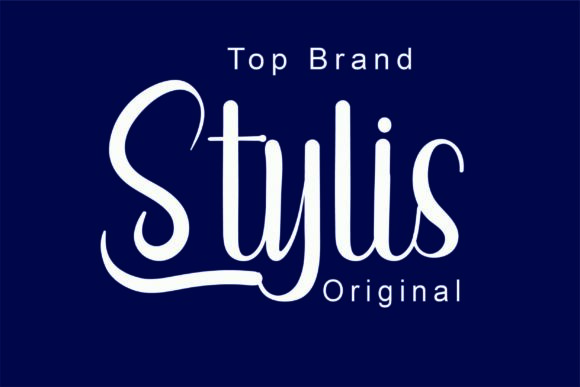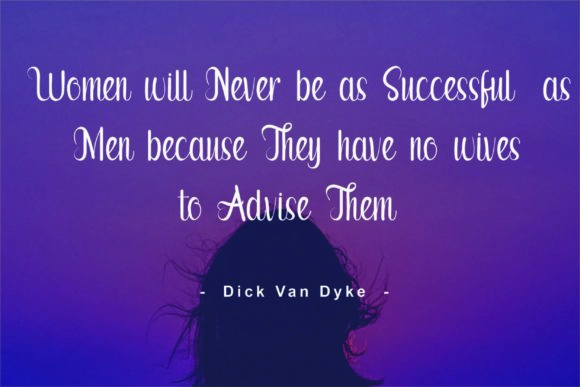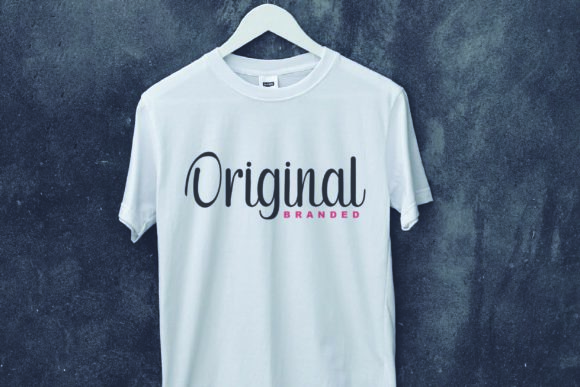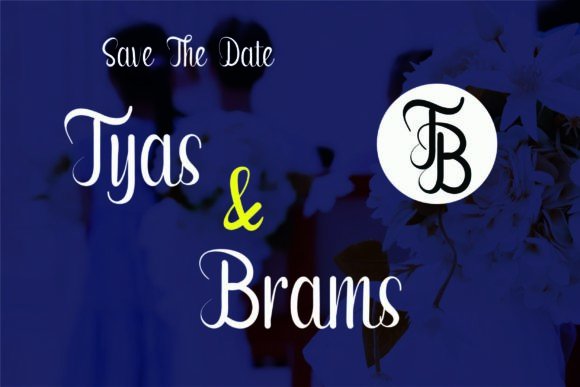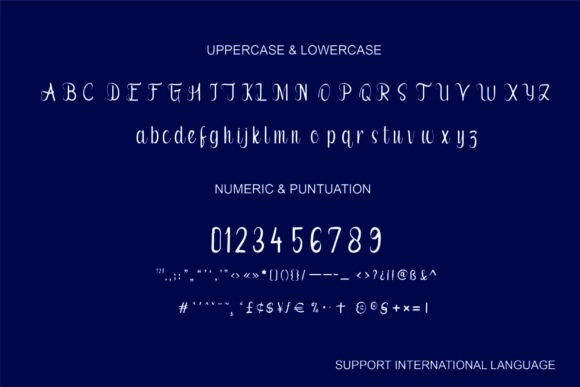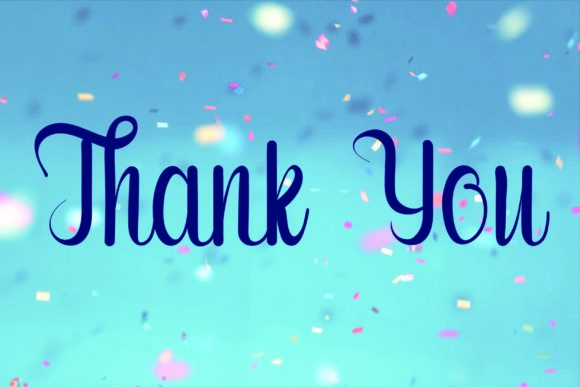
The Biyoungky Font
About The Biyoungky Font
The Biyoungky is a stunning and bold handwritten font that exudes confidence and elegance. It is specifically designed to make your headlines and logotype projects stand out with its assertive and stylish touch. The font’s strong and dynamic appearance adds a touch of nostalgia, making it a perfect choice for designs that require a touch of vintage or classic charm.
When you use The Biyoungky for your projects, it commands attention and leaves a lasting impression on your audience. Its bold strokes and assertive letterforms create a sense of strength and authority, making it ideal for branding, logos, and headlines where you want to convey a powerful and impactful message.
This font’s handmade look and feel give it a unique and authentic character, setting it apart from more conventional typefaces. It captures the essence of handwriting, which adds a personal and human touch to your designs. This sense of authenticity helps to establish a strong connection with your audience and creates a memorable experience.
The Biyoungky’s versatility allows it to work well in various contexts. Whether you’re creating posters, banners, social media graphics, packaging, or any other design project, this font can elevate your work with its elegant and confident appearance.
In addition to its bold and assertive style, The Biyoungky also offers a wide range of ligatures, swashes, and alternative characters, giving you the freedom to customize your designs and create unique and eye-catching compositions.
Using The Biyoungky in your projects allows you to tap into the font’s nostalgic charm, evoking a sense of classic elegance and timeless beauty. Its expressive strokes and attention-grabbing presence make it a font that leaves a lasting impact on anyone who encounters it.
In conclusion, The Biyoungky is a gorgeous and assertive handwritten font that adds strength, confidence, and nostalgic character to your designs. Its stylish and dynamic appearance makes it perfect for headlines, logotypes, and branding projects, where you want to make a powerful and impactful statement. Embrace the elegance of The Biyoungky to create stunning and memorable designs that captivate your audience’s attention.